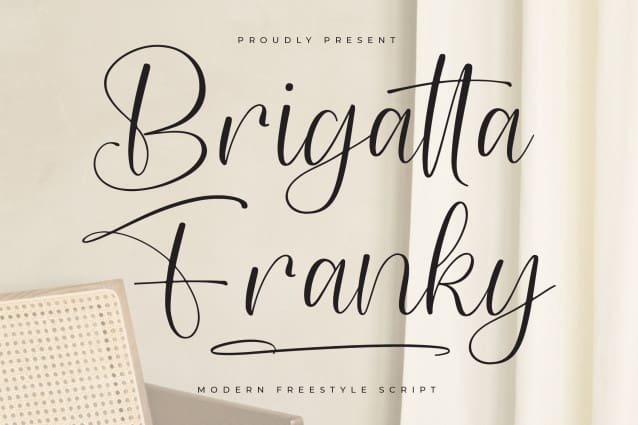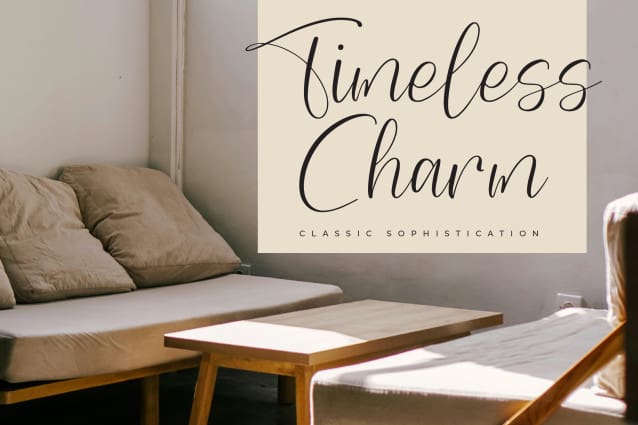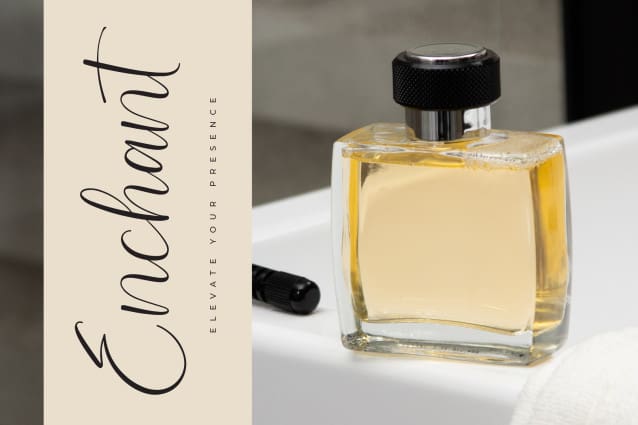
Brigatta Franky Font
Brigatta Franky Font – Modern Freestyle Script , from Letterena, is a Luxury Script font, suitable for any projects such as: logos, branding projects, homeware designs, product packaging, mugs, quotes, posters, shopping bags, t-shirts, book covers, name card, invitation cards, greeting cards, label, photography, watermark, special events, and all your other luxury and beautiful projects that need a Luxury Script taste.